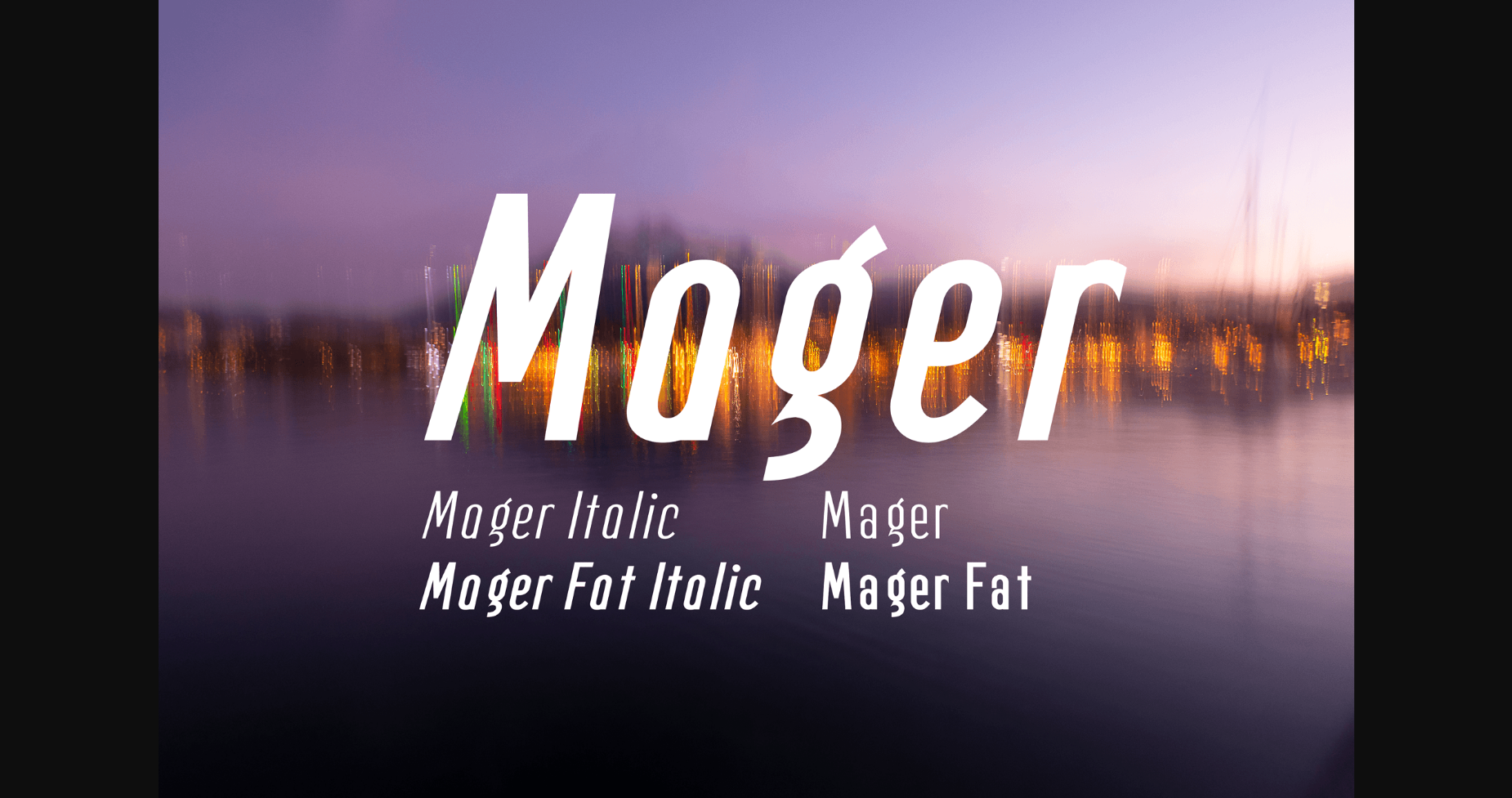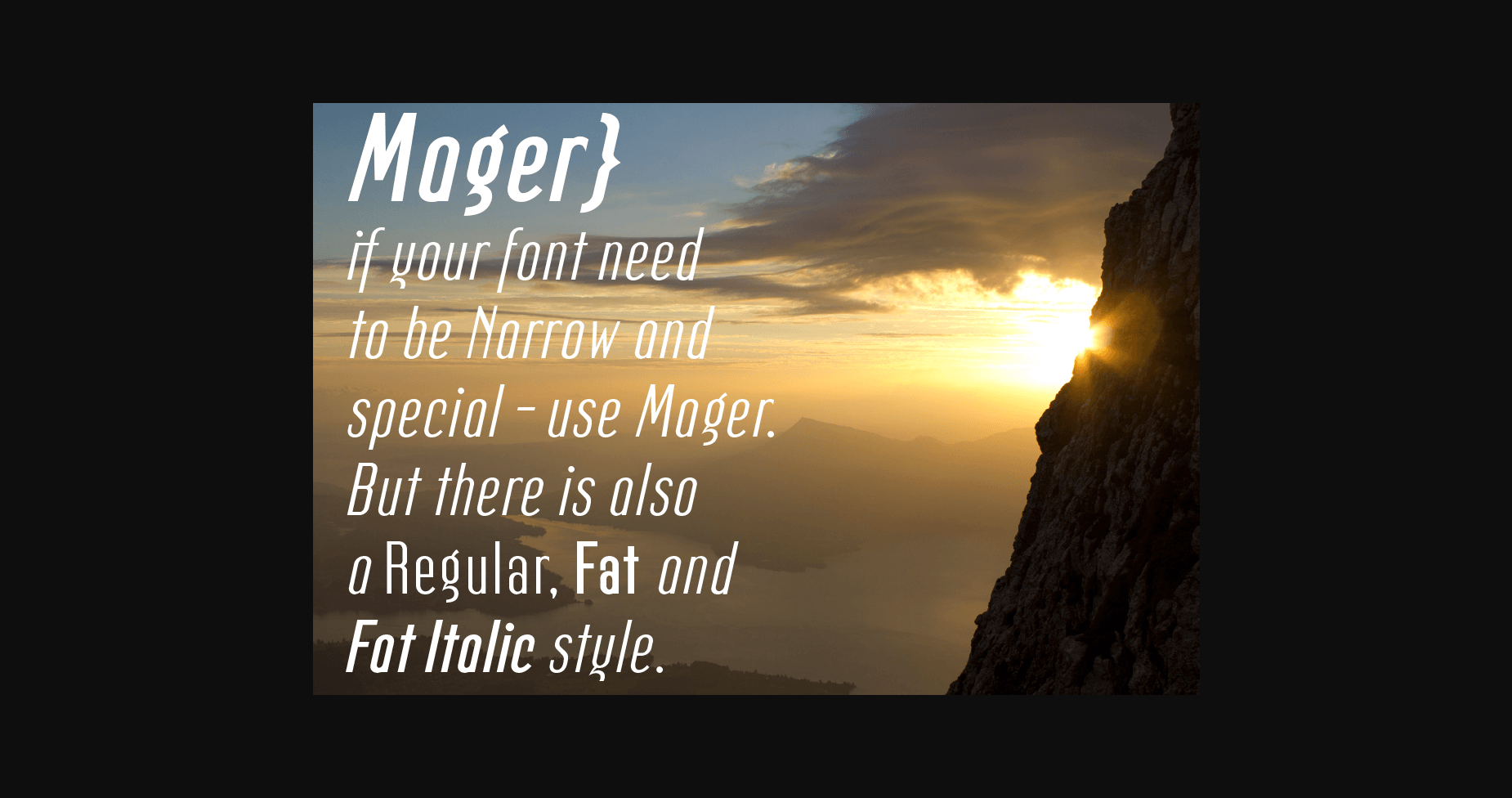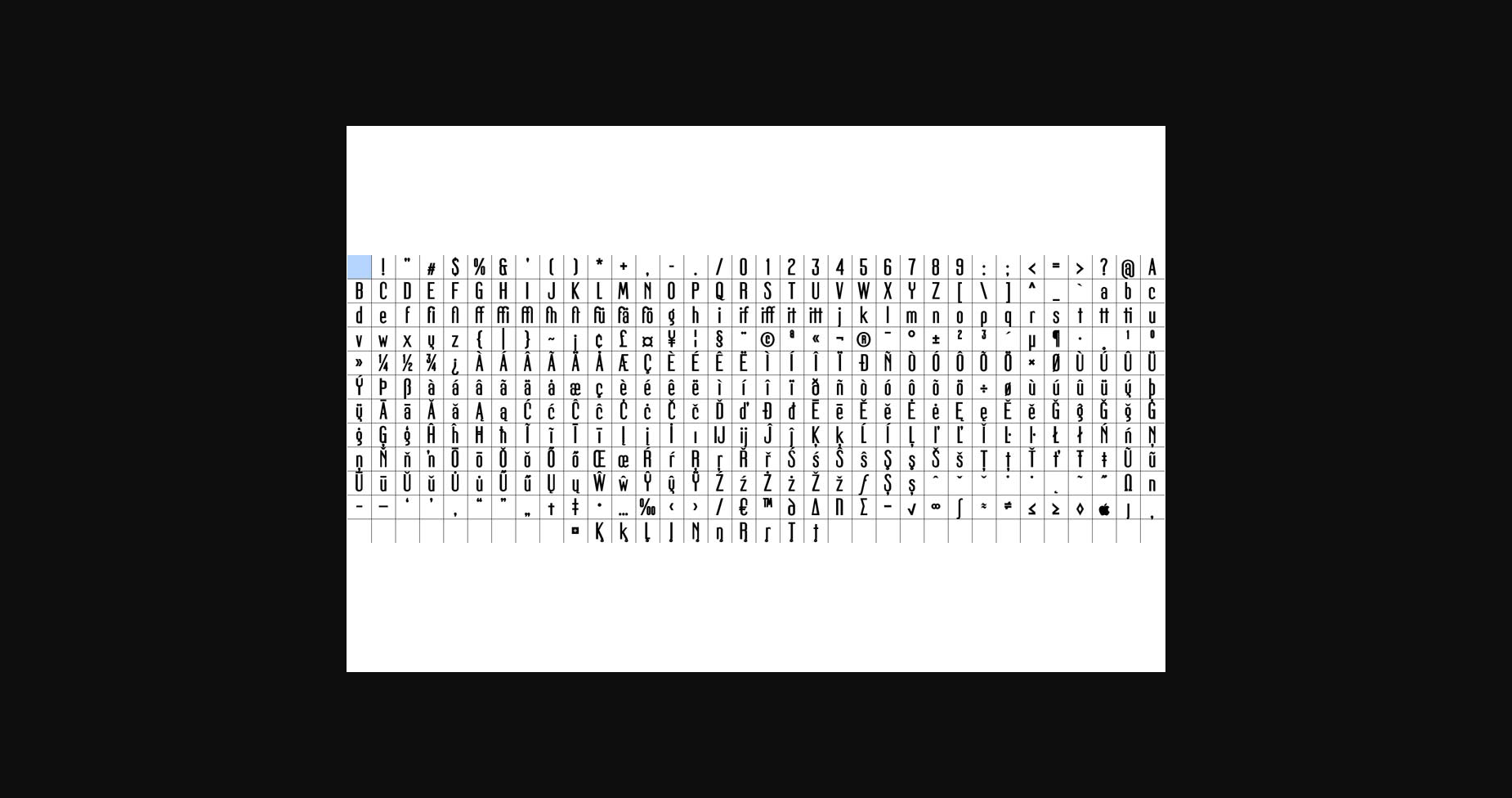
About Mager Font
Mager is a very narrow sans serif font, fit for special purposes. It acts as a slim sans serif title font and also as copy font. The «g» is typical for the Mager. Use this unique typeface to create something extraordinary!